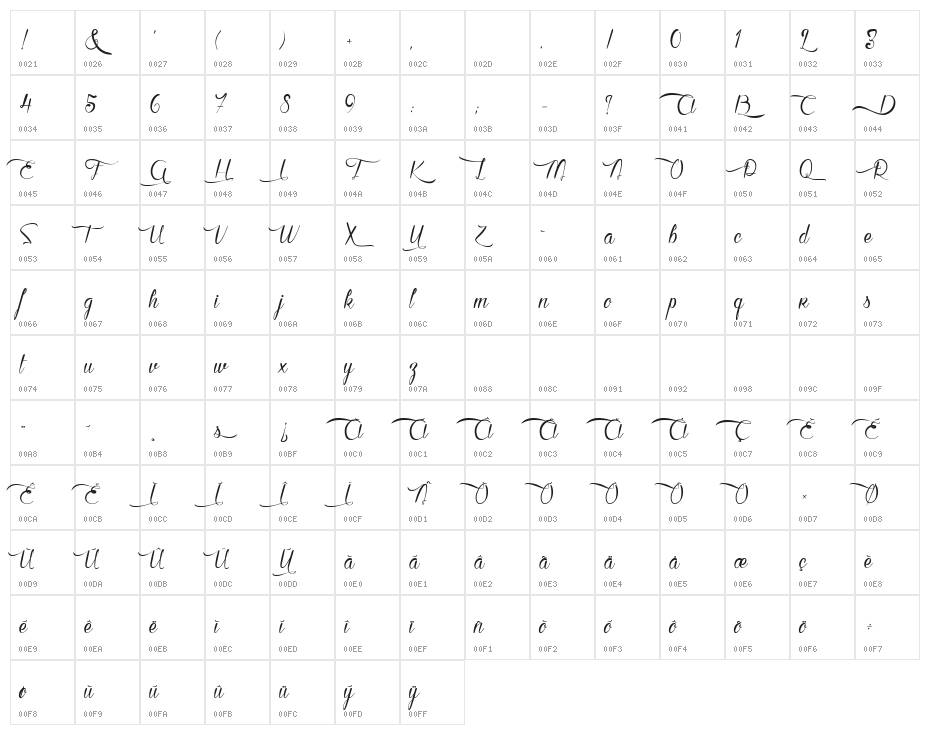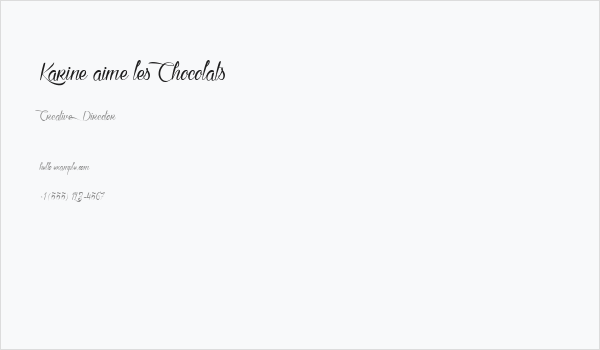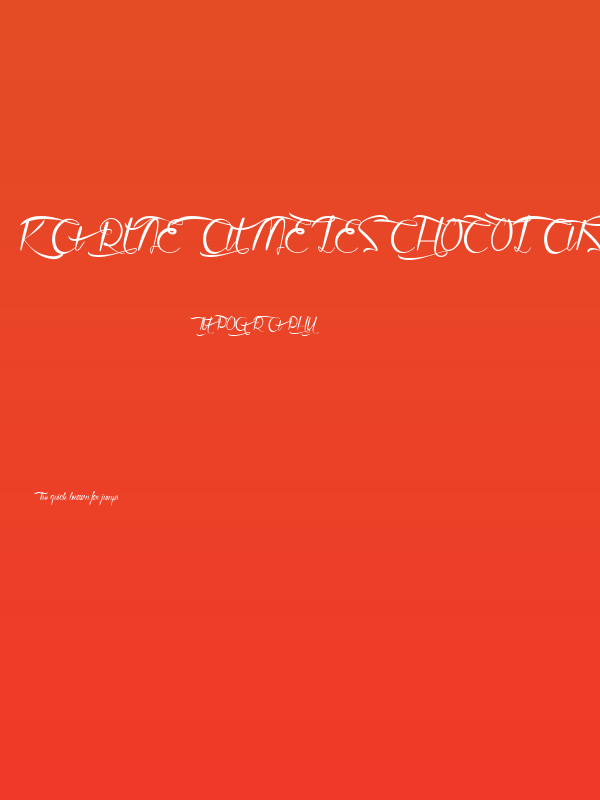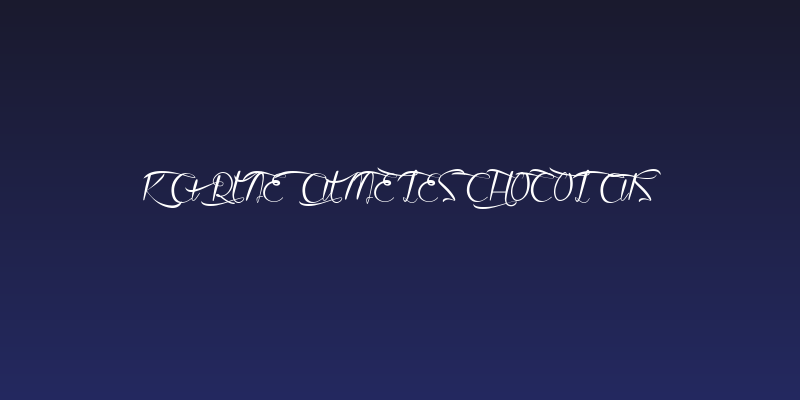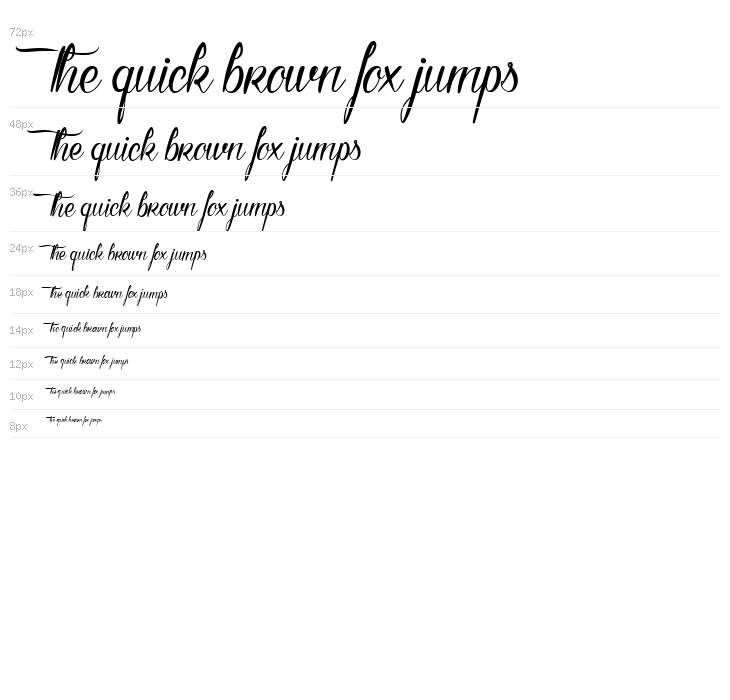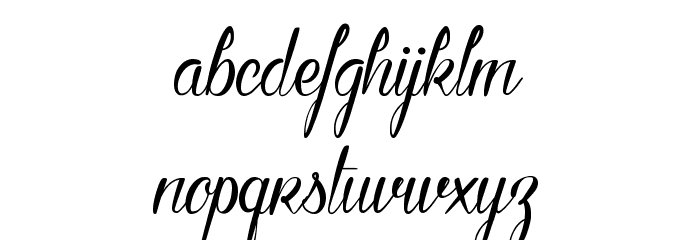
Karine aime les Chocolats Font
Karine aime les Chocolats Description
This font is an elegant and sophisticated script style, characterized by its flowing and intricate letterforms. The uppercase letters are particularly ornate, with elaborate swashes and flourishes that give a sense of movement and grace. The lowercase letters maintain a more restrained elegance, with smooth curves and a consistent stroke width that enhances readability. The numbers and special characters are designed to complement the overall aesthetic, featuring similar decorative elements. This font is perfect for projects that require a touch of luxury and refinement.
| Use Case | Logos, Invitations, Headlines |
| Proposed Projects | Ideal for wedding invitations, luxury branding, high-end packaging, and elegant event signage. |